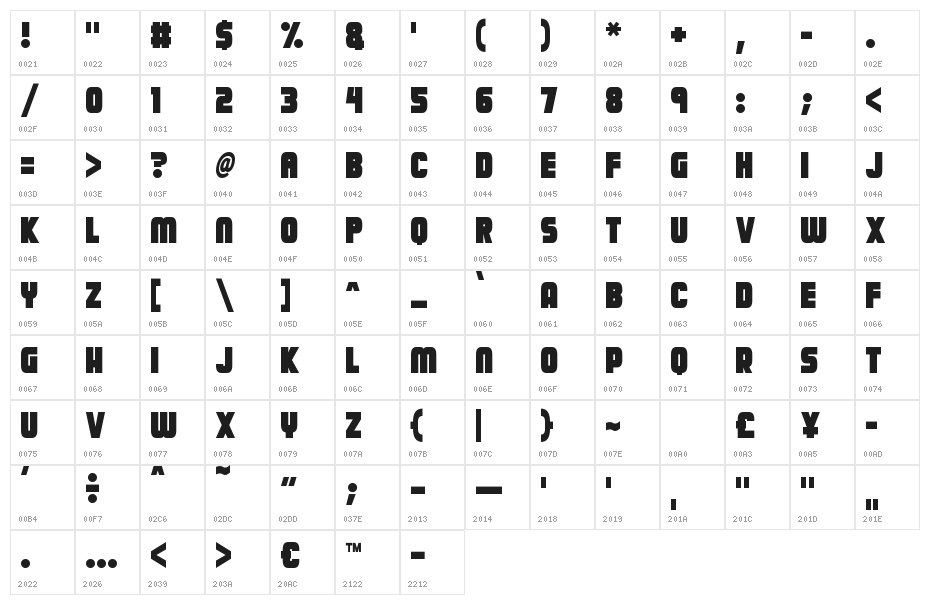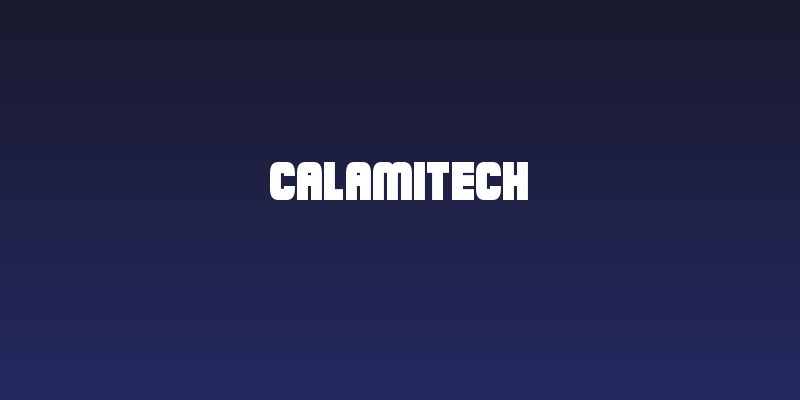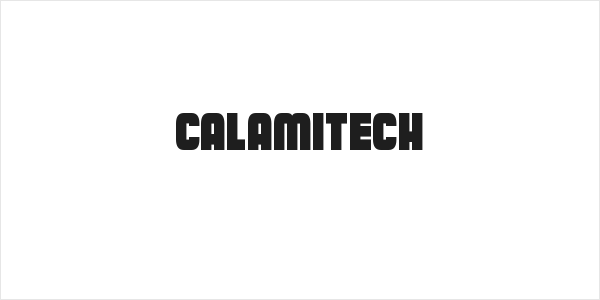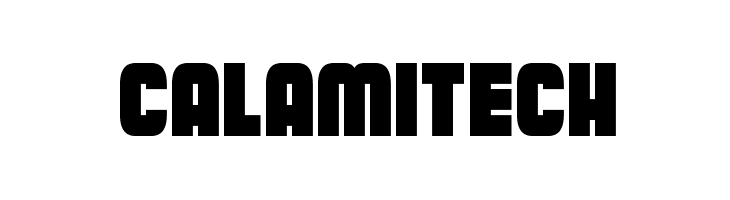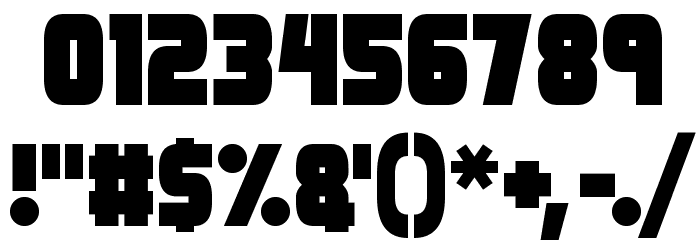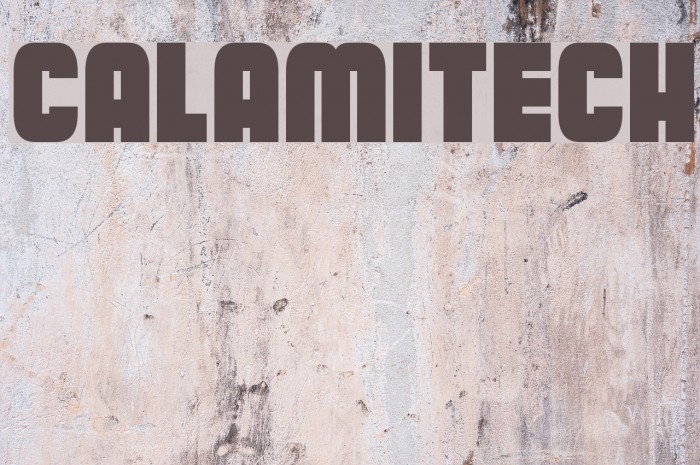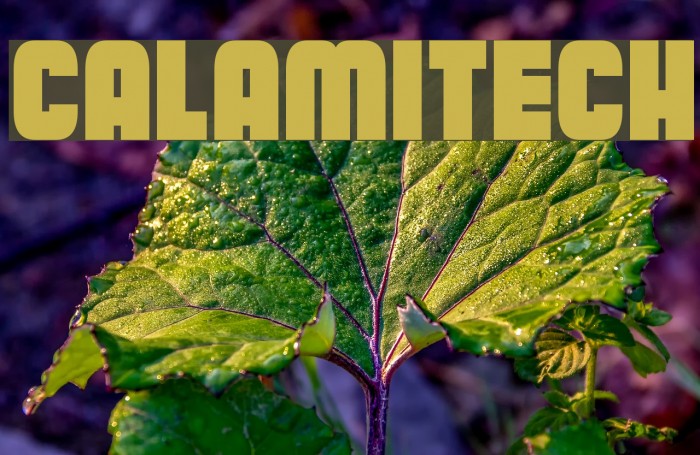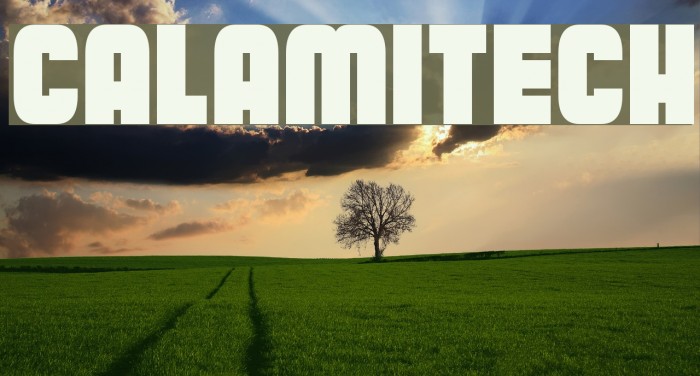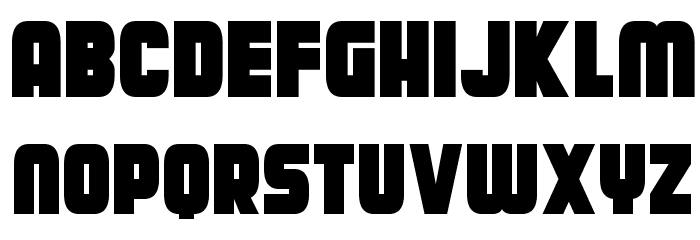
Calamitech Font
Calamitech Description
This bold and impactful font features strong geometric shapes with a modern, industrial feel. The characters are uniformly thick, creating a powerful presence that demands attention. The uppercase letters are particularly striking, with their blocky, robust forms. The numbers and special characters maintain the same boldness, ensuring consistency across all text. This font's design is straightforward yet assertive, making it ideal for projects that require a strong visual impact.
| Proposed Projects | Ideal for branding, posters, headlines, and any design requiring a strong, impactful presence. |